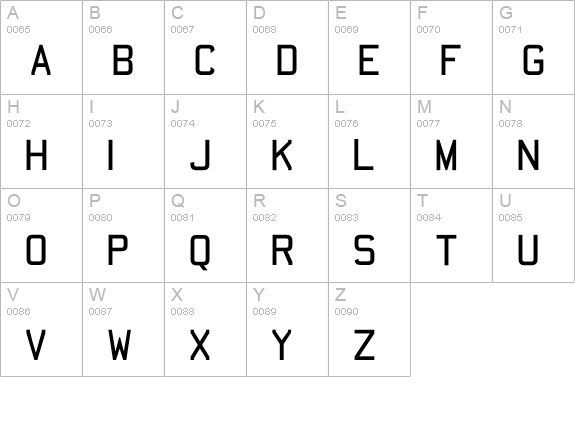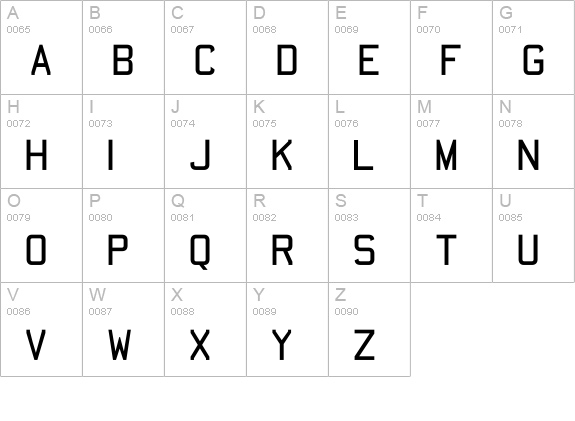
AFCarplates-Medium Font Details
AFCarplates-Medium is a balanced, medium-weight variant in the AFCarplates typeface family \xE2\x80\x94 well suited to sub-headlines, navigation, and balanced editorial work.
AFCarplates-Medium font is a sleek and modern typeface perfect for adding a touch of sophistication to your designs. With its clean lines and balanced proportions, this font exudes professionalism and elegance. The medium weight of the font strikes a perfect balance between boldness and readability, making it versatile for a wide range of design projects. And the best part? AFCarplates-Medium font is freely available to download at FontsMarket.com. Whether you're working on branding, advertising, or web design, this font is sure to elevate your projects to the next level. Don't miss out on the opportunity to enhance your designs with this stylish and contemporary typeface. Download AFCarplates-Medium font today and see the difference it can make in your work!